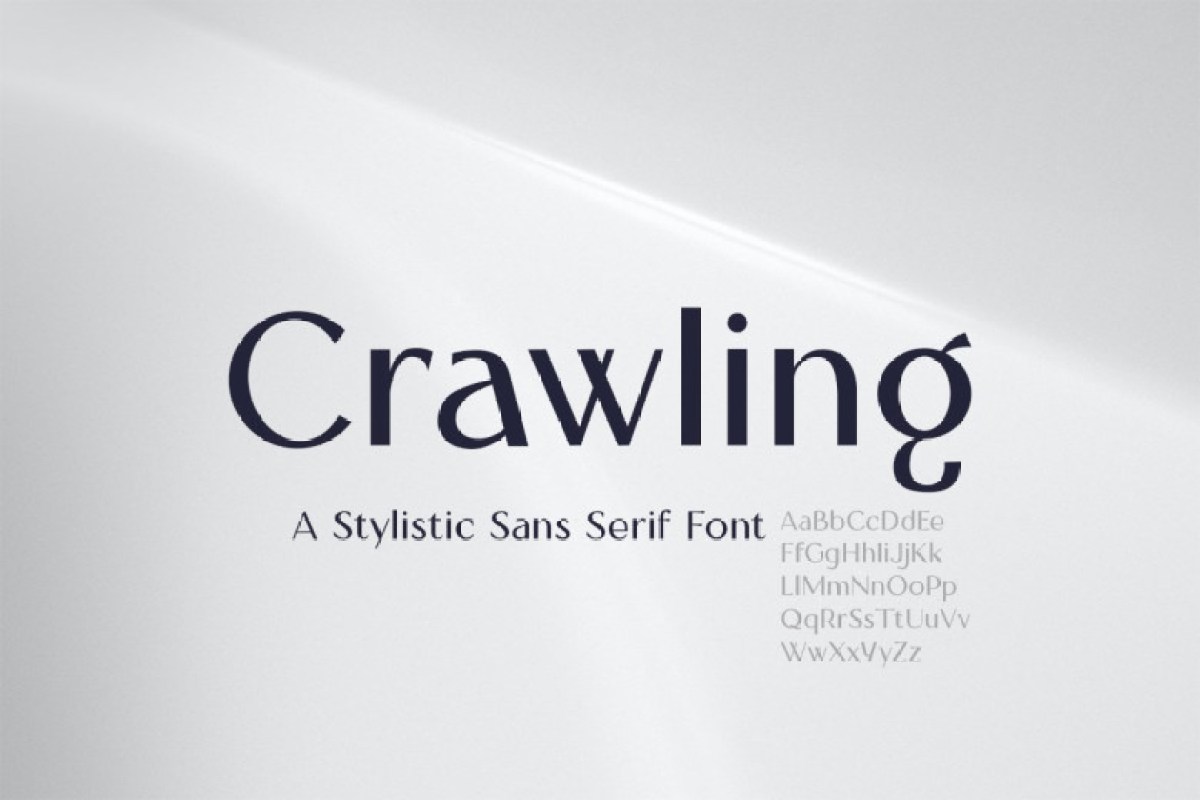
Crawling Font
Crawling is a sleek and stylish sans-serif font perfect for making a modern statement. Ideal for logos, headlines, advertisements, and invitations, its clean design ensures clarity and impact across various creative applications.